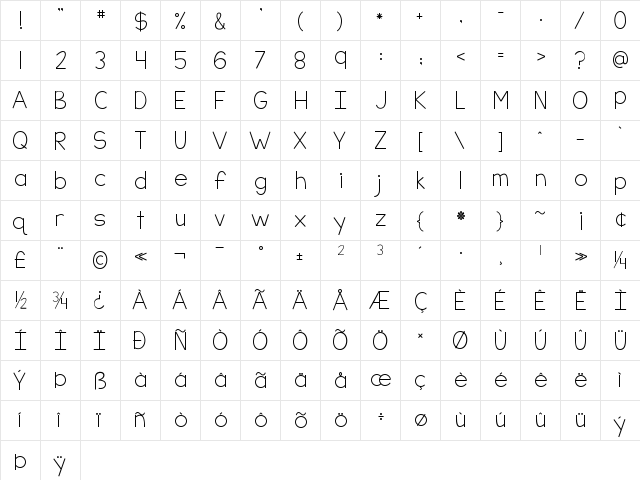
KG Part of Me Regular
Design Context for KG Part of Me Typeface
KG Part of Me offers clean, dependable letterforms without strong stylistic allegiance, making it a practical choice for designers who need flexibility.